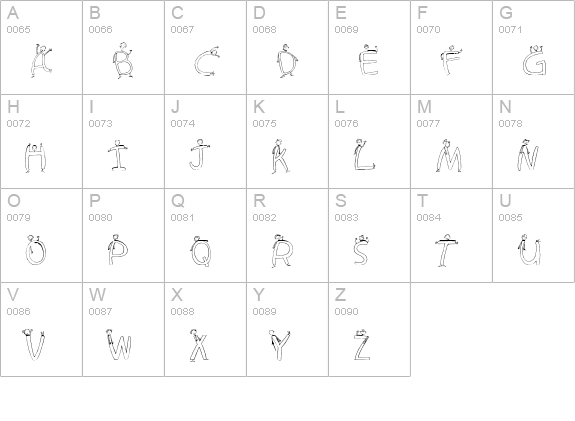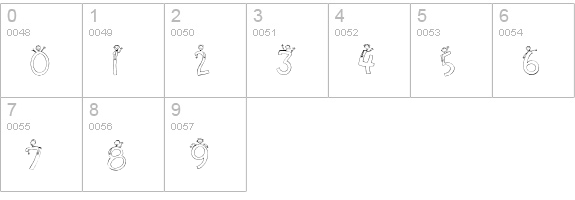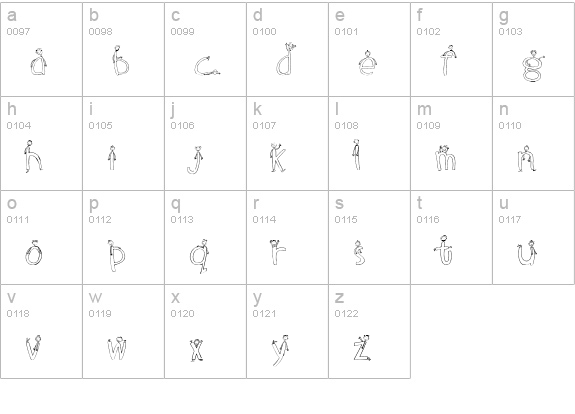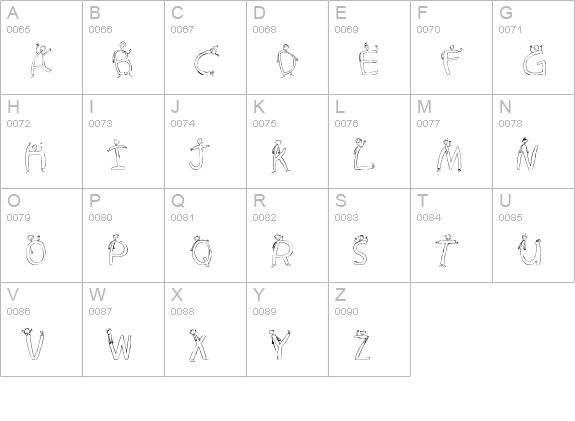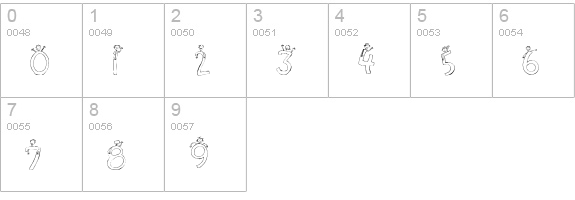
CK Stick Boys Font Details
Introducing CK Stick Boys font, a playful and whimsical typeface that is perfect for adding a touch of fun to your designs. This font features quirky stick figures as characters, adding a unique and charming element to any project. CK Stick Boys font is not only fun and eye-catching but also versatile, making it suitable for a wide range of design applications. Whether you're creating posters, invitations, or social media graphics, this font is sure to make your text stand out. The best part is that CK Stick Boys font is completely free to download at FontsMarket.com. So go ahead and add a touch of whimsy to your designs with this delightful font today!